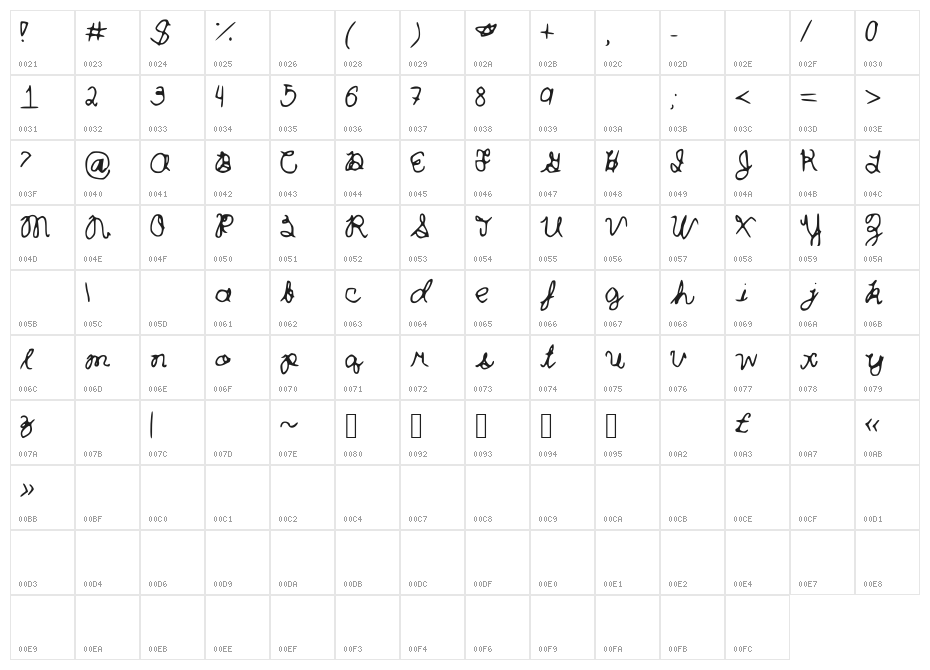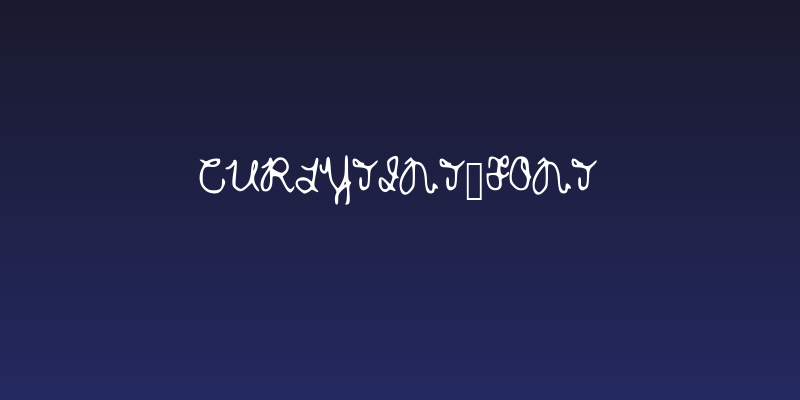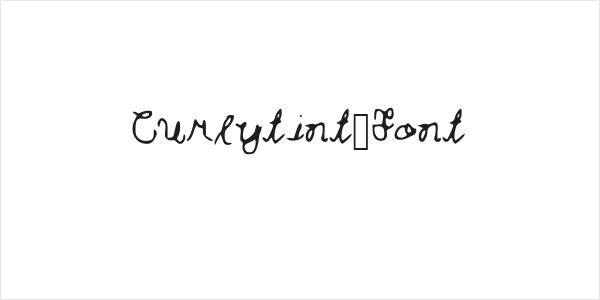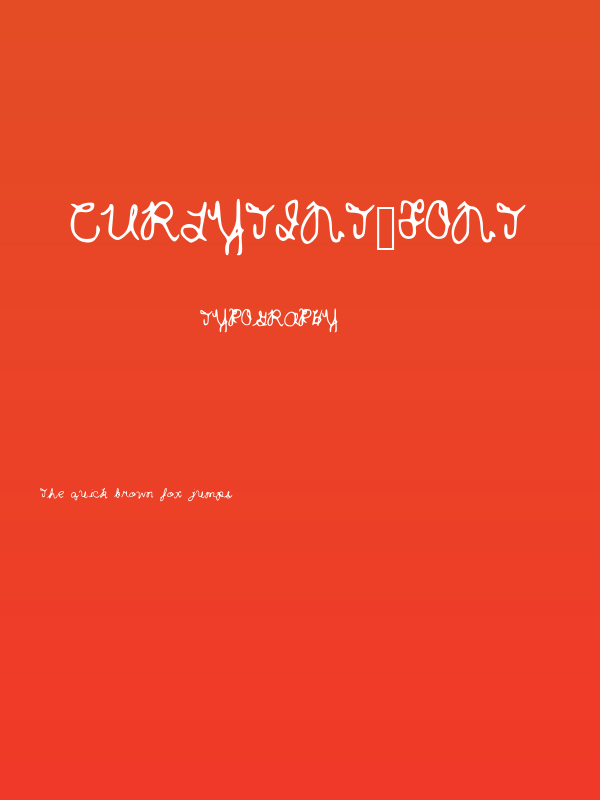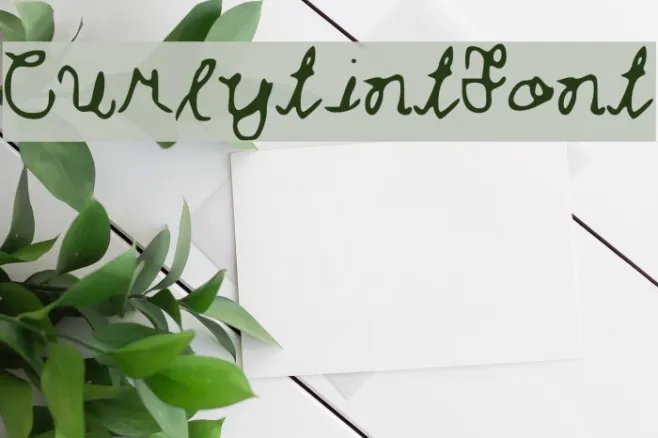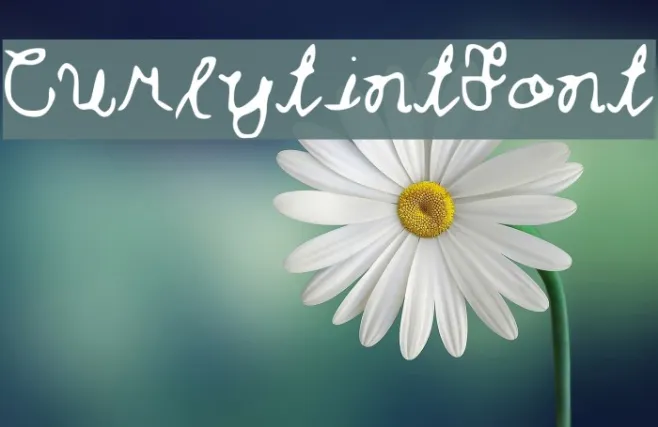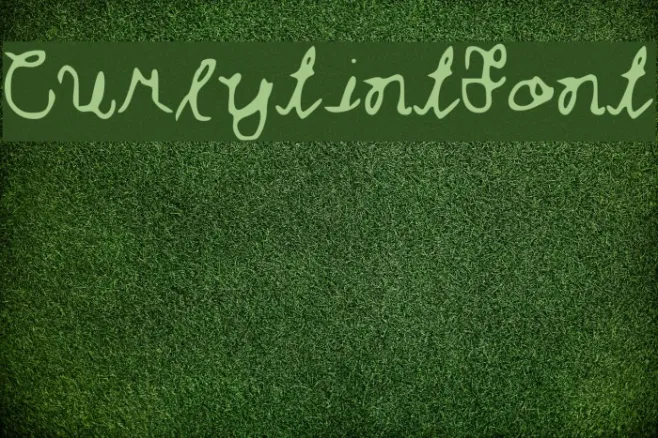
Curlytint_Font Font
Curlytint_Font Description
This font features a playful and whimsical style, characterized by its curly and looping letterforms. The strokes are uneven, giving it a hand-drawn appearance that adds a touch of personality and charm. The uppercase and lowercase letters maintain a consistent style, with each character exhibiting unique flourishes and curves. The numbers and special characters follow the same design principles, ensuring a cohesive look across all elements. The font's overall aesthetic is casual and artistic, making it suitable for creative projects that require a personal touch.